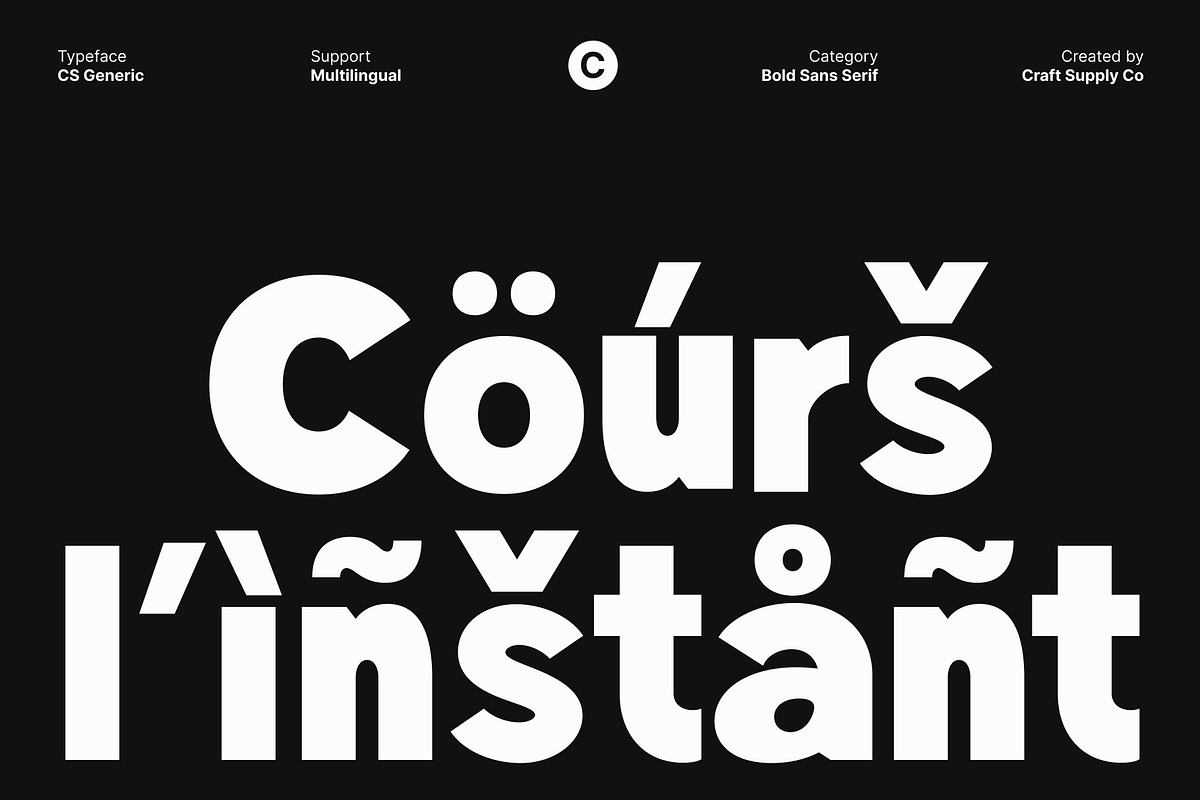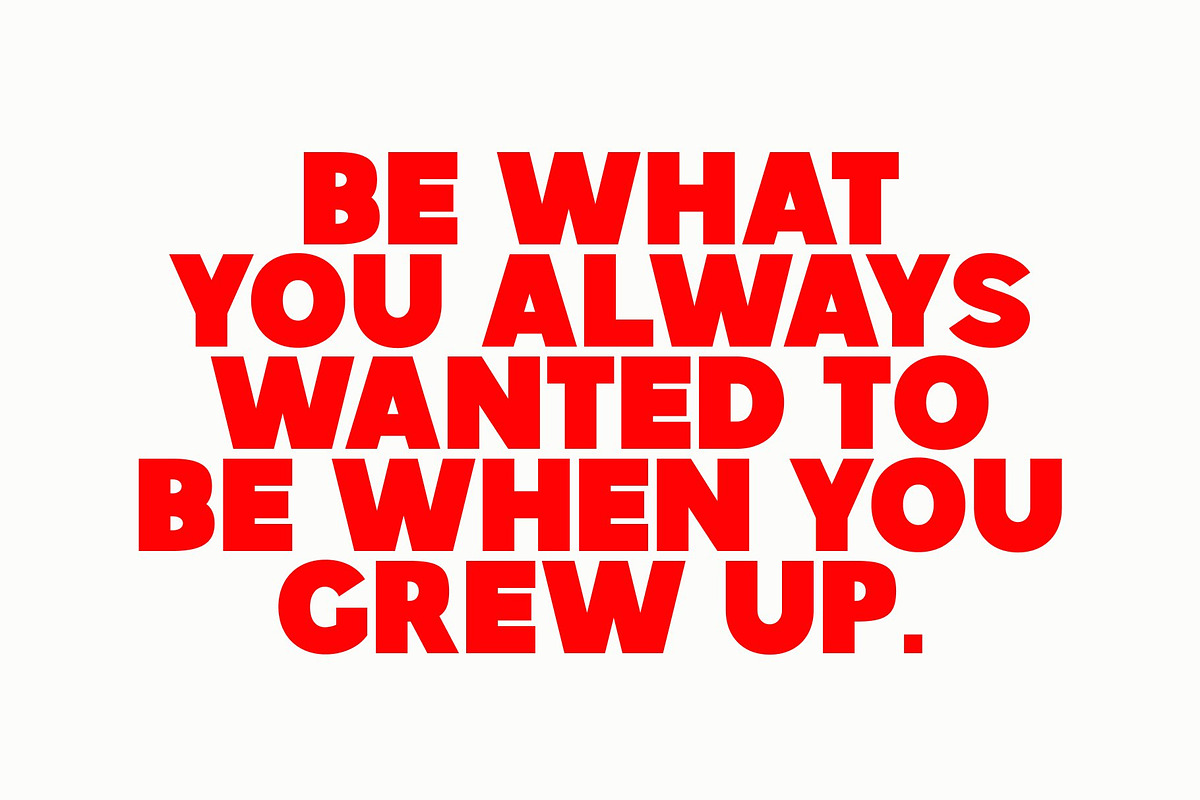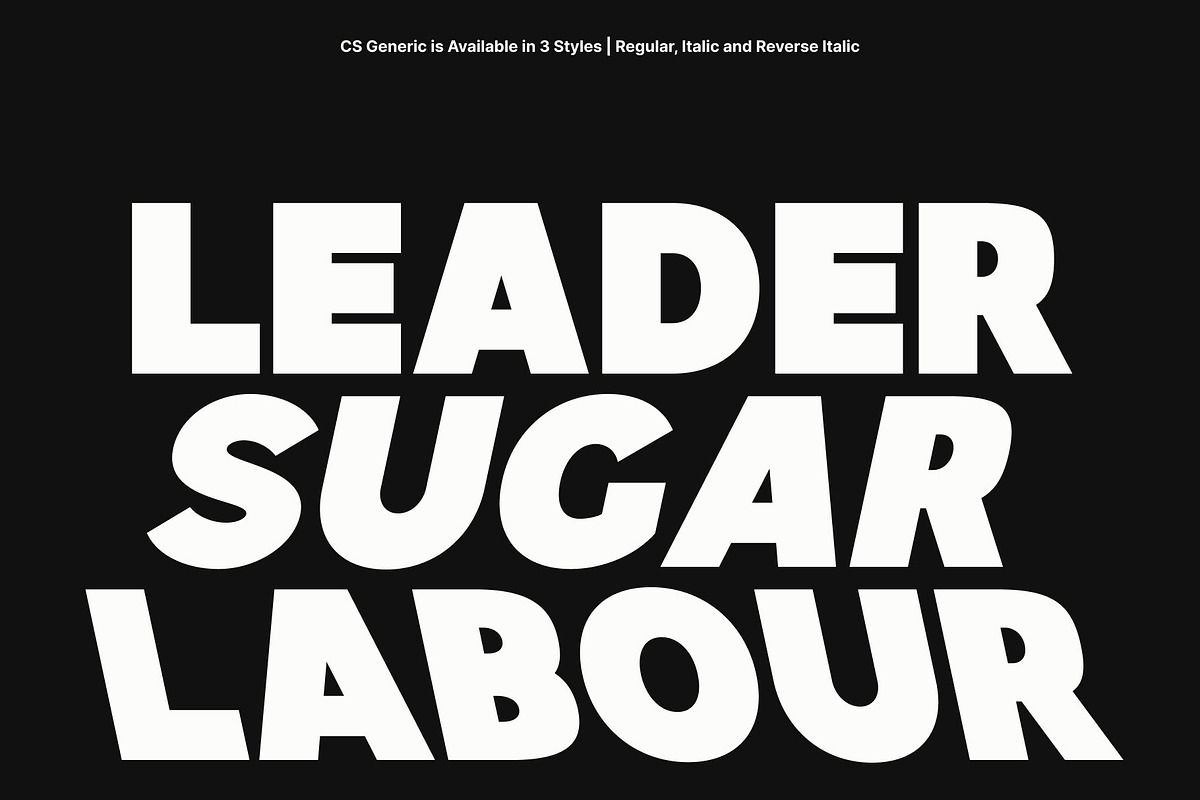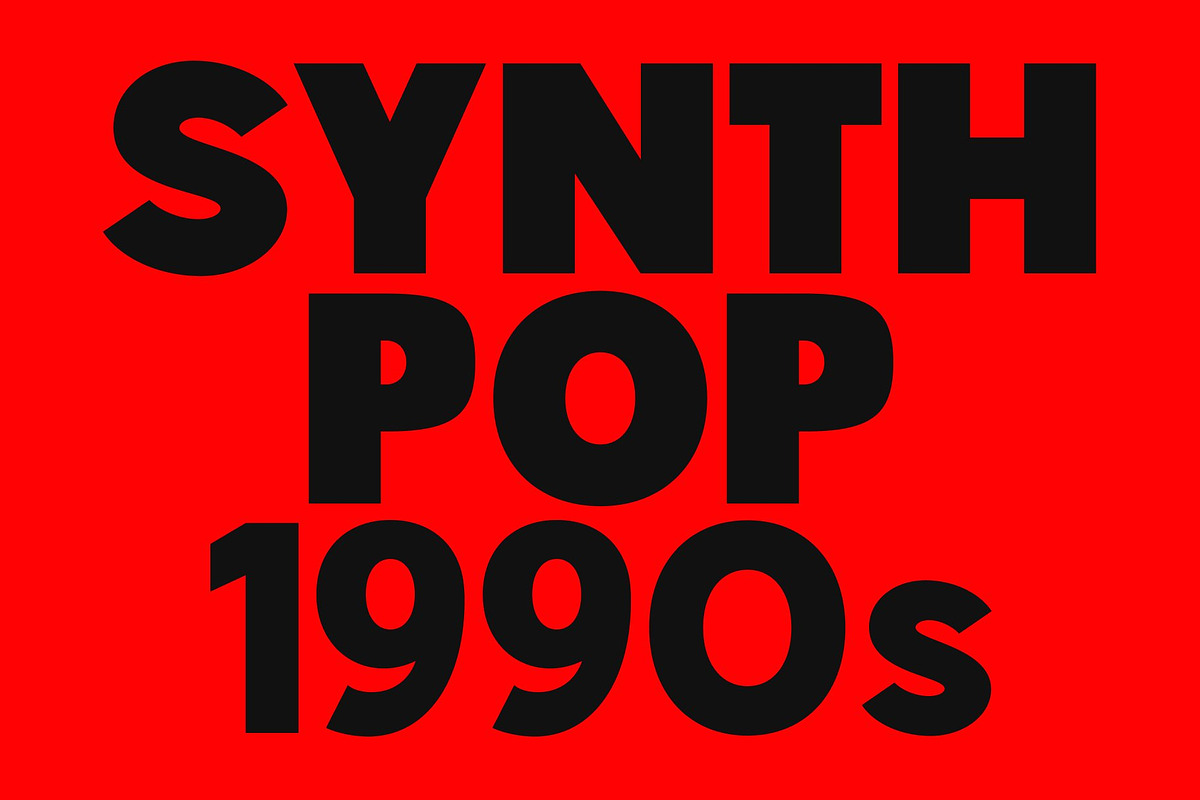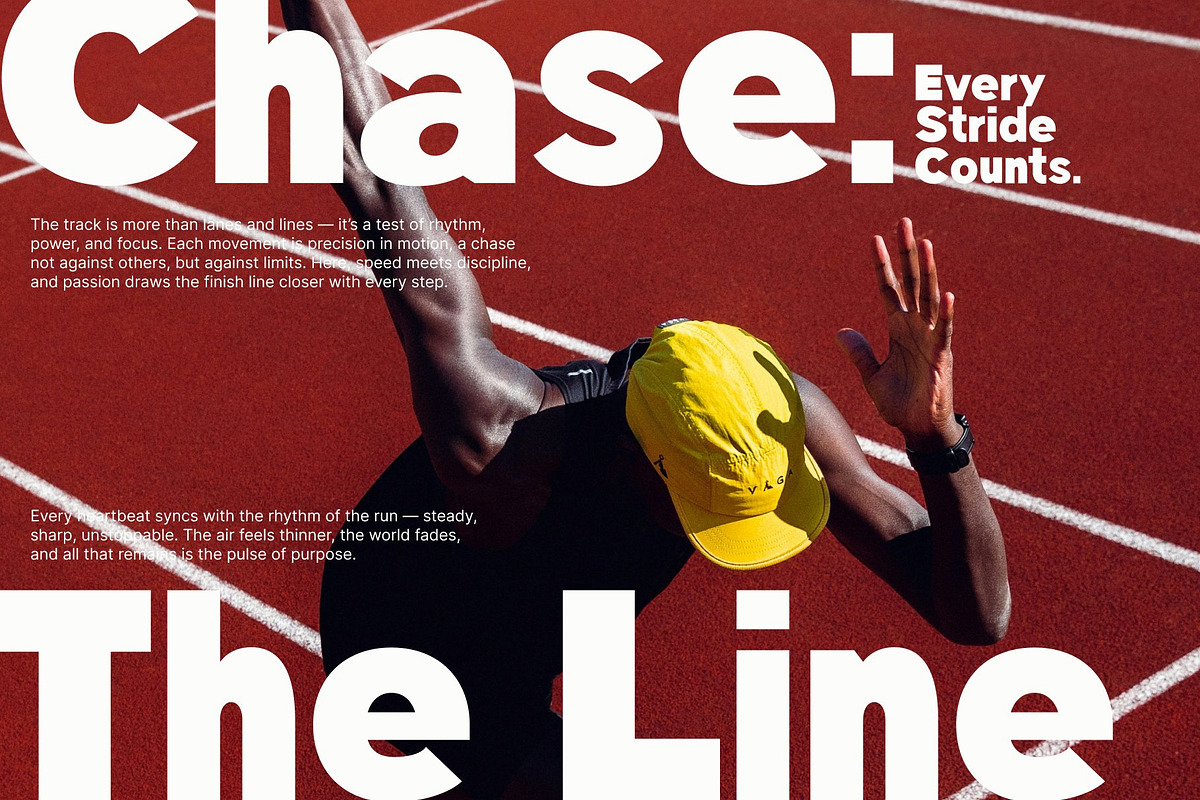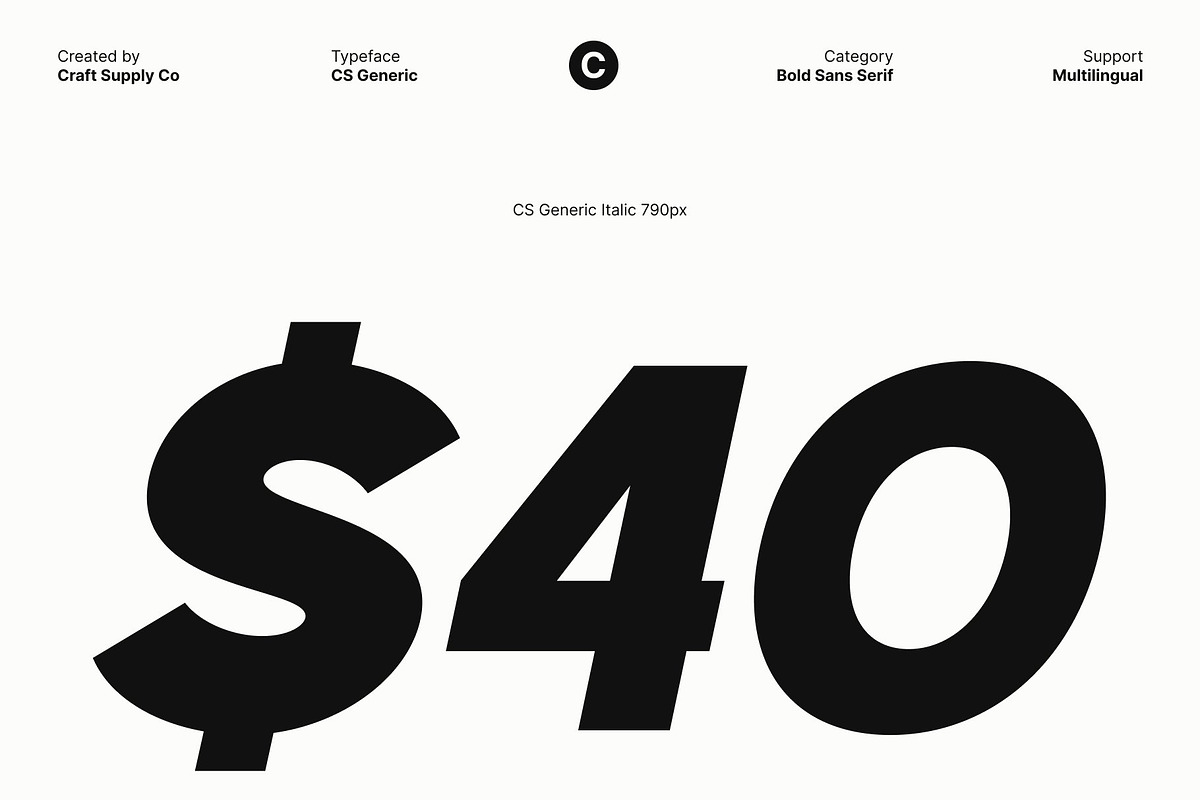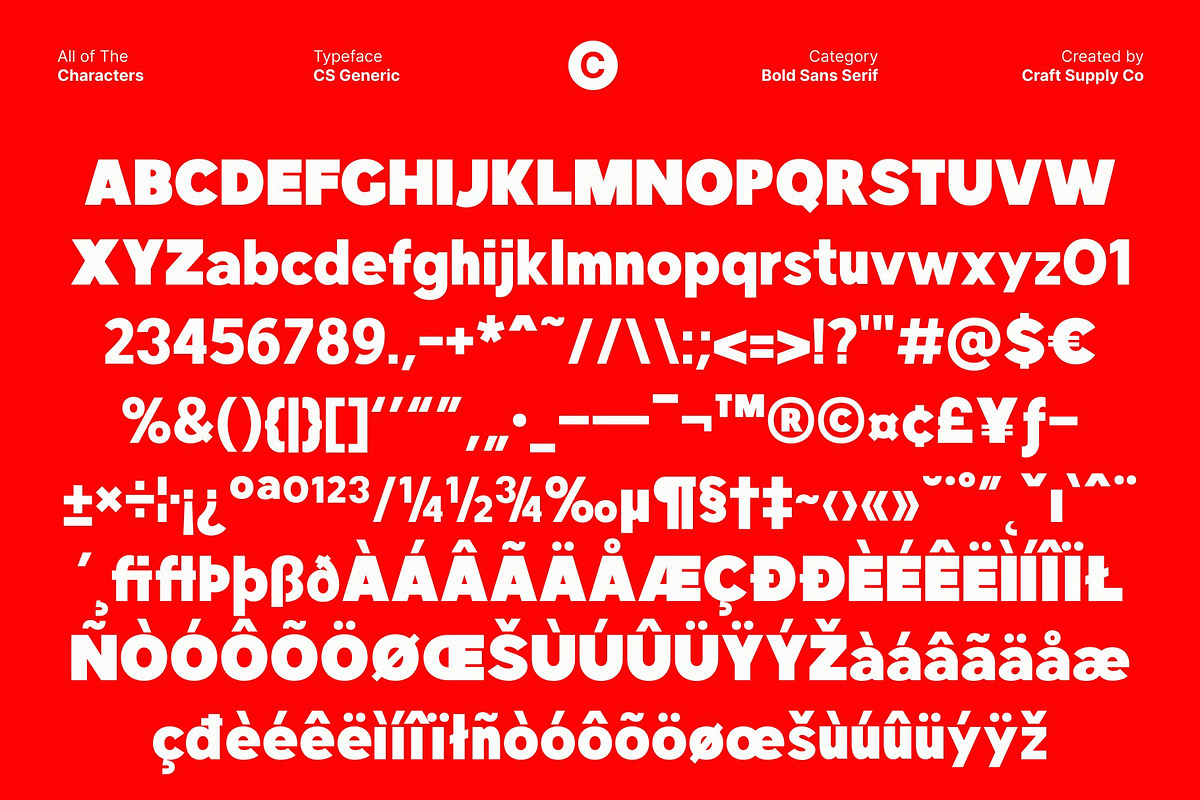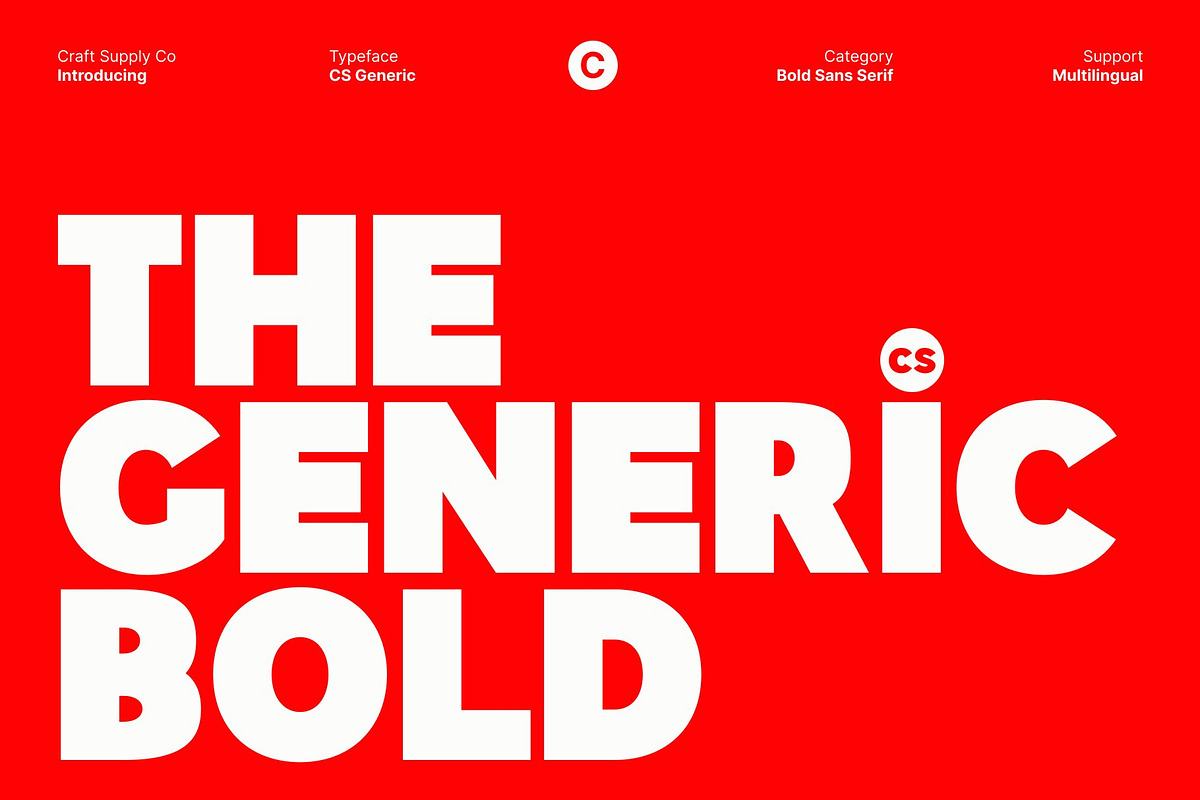
CS Generic – Bold Sans Serif
CS Generic – Bold Sans Serif for Modern Visual Impact
Bold Contemporary Aesthetics This is a bold sans serif display font designed to command attention with its powerful modern structure. Featuring striking geometric forms and expressive shapes, it brings clarity and confidence to any layout. Each letter is crafted to deliver maximum visual presence, making it ideal for designers seeking a clean yet energetic typeface.
Designed for High Impact Headlines Make your messages impossible to ignore. This fonts bold weight and strong proportions make it a natural fit for headlines, banners, and striking promotional materials. Its solid structure ensures legibility even at large scales, while its modern styling enhances the overall impression.
Perfect for Distinctive Branding This font delivers a professional, contemporary identity that works beautifully across branding applications. Its lively and expressive shapes help logos, packaging, and brand visuals stand out with authority. The font’s boldness conveys confidence, while its clean lines maintain a refined, modern aesthetic.
Versatile for Modern Design Needs From print layouts to digital compositions, this font adapts effortlessly to a wide range of creative purposes. Its straightforward yet expressive design makes it suitable for editorial work, social media graphics, signage, marketing materials, and more. The font’s balance of readability and impact ensures it remains visually appealing across various contexts.